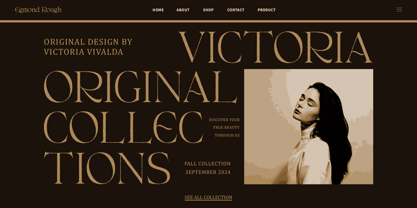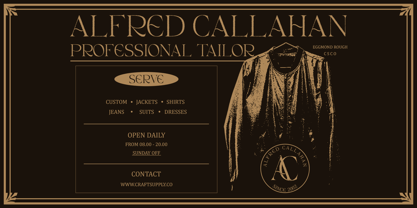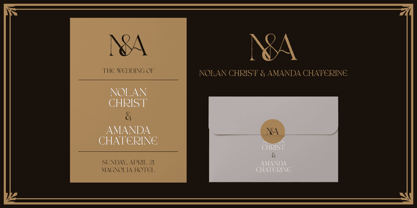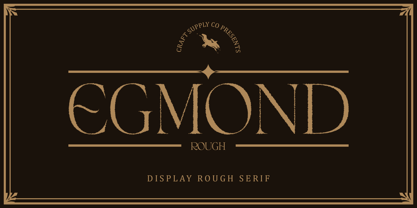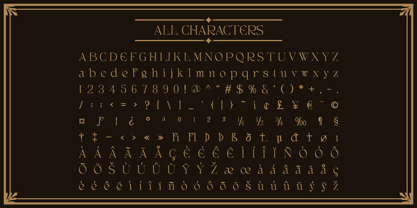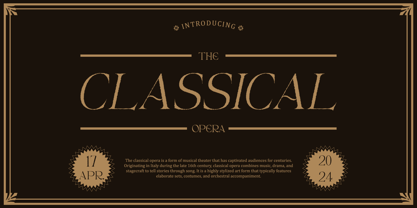
Egmond Rough
by Craft Supply Co
The Egmond Rough Font Family was designed by Trio Nazzar Saputra, Wahyu Hadi Yuana and published by Craft Supply Co. Egmond Rough contains 2 styles and family package options. More about this family
Egmond Rough: A Delicate Display Typeface Subtle Serif Light Egmond Rough features a refined serif light design, offering a delicate yet distinctive appearance ideal for display purposes. Rough Texture for Added Character The font is enriched with a rough texture effect, injecting character and depth into each letterform, enhancing its visual appeal. Tailored for Display Needs Crafted specifically for display applications, This font excels in catching the eye and conveying a message with its unique blend of delicacy and texture. Versatility in Application Beyond its striking appearance, This font is versatile, suitable for a wide range of projects, including branding, packaging, and editorial design. Subtle Statement This font stands out as a subtle yet impactful display typeface, offering a delicate serif light design combined with a distinctive rough texture effect. Its versatility and visual charm make it an excellent choice for various display projects, ensuring your message is conveyed with elegance and style.
Designers: Trio Nazzar Saputra, Wahyu Hadi Yuana
Foundry: Craft Supply Co